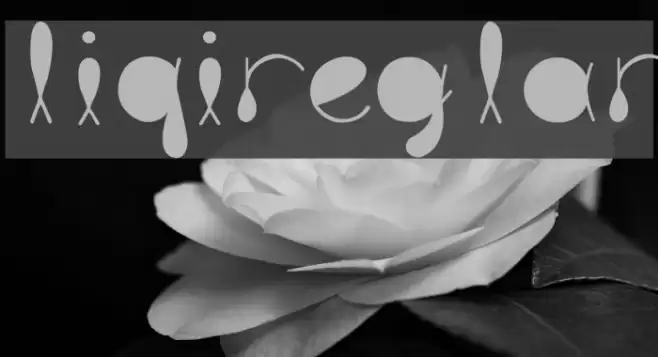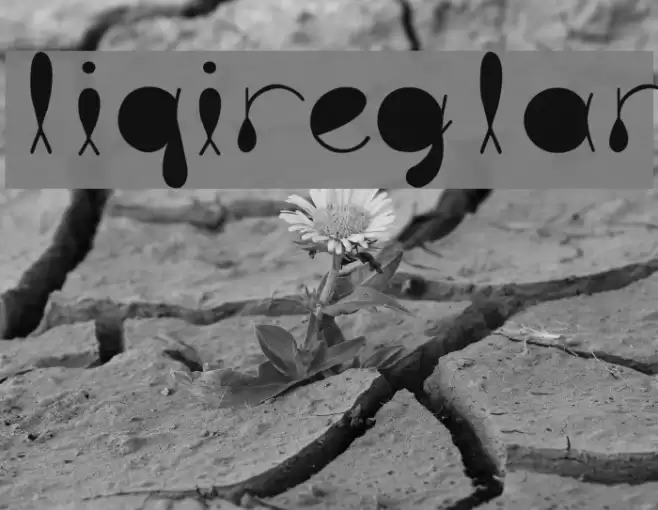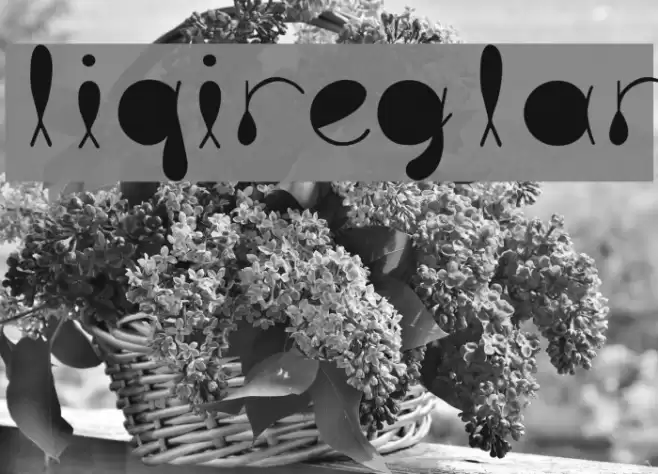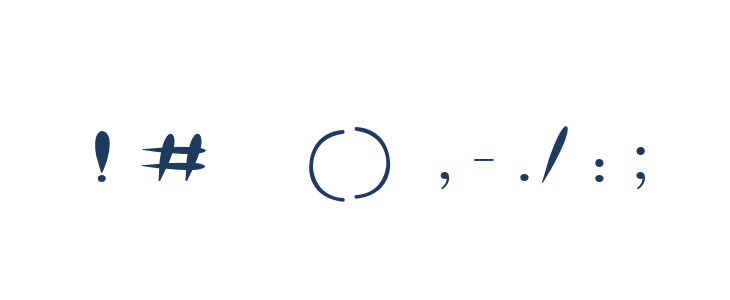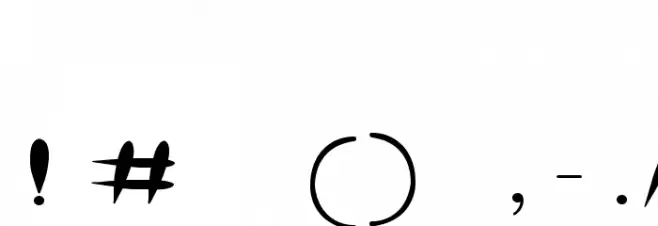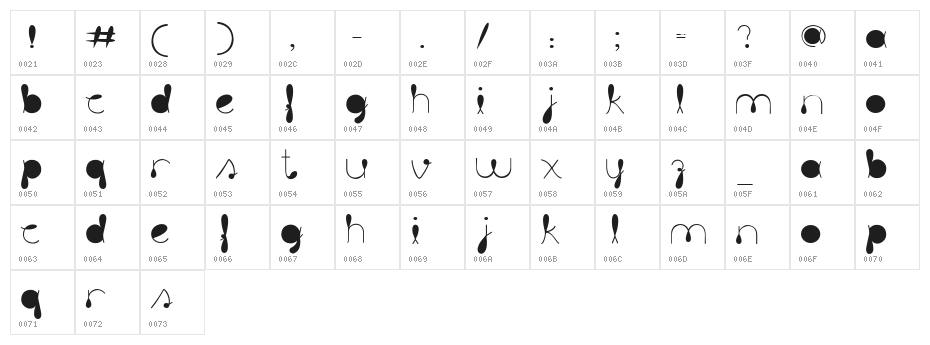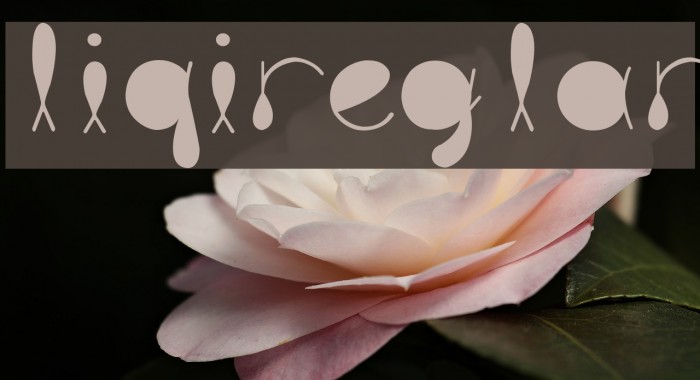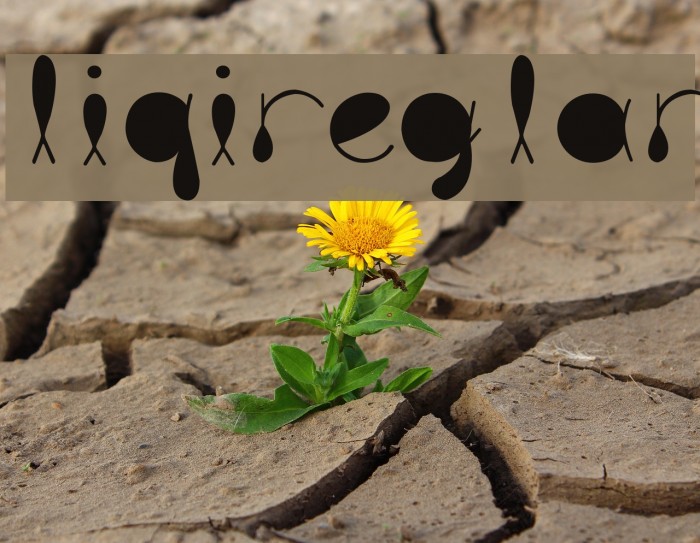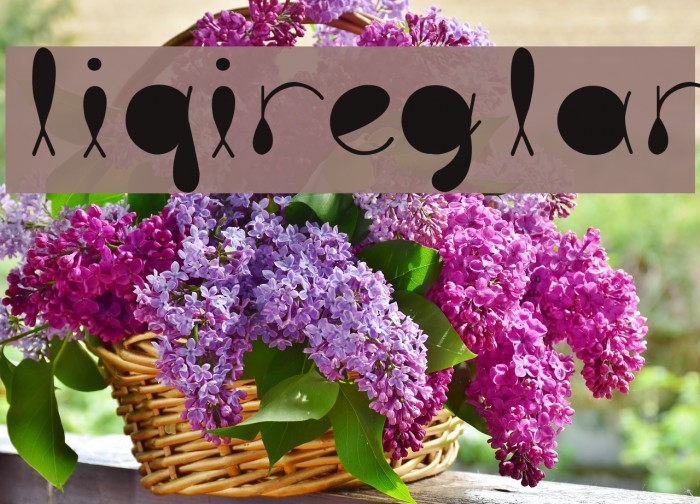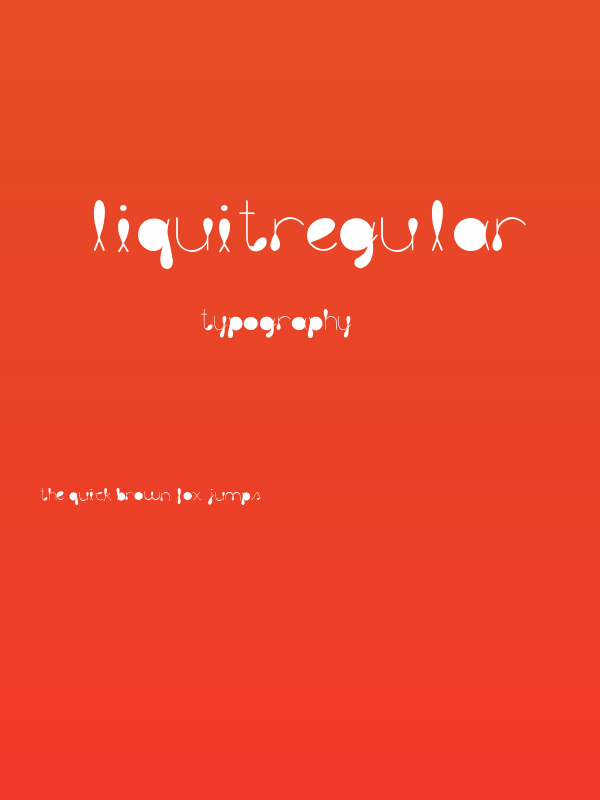
liquitRegular Font
liquitRegular Description
This font features a unique and playful design with a liquid-like appearance. The characters are crafted with bold, rounded strokes that give a sense of fluidity and movement. The lowercase letters exhibit a whimsical style, with some characters appearing as if they are dripping or melting. The uppercase letters maintain a similar playful aesthetic, with exaggerated curves and bold forms. The numbers and special characters continue this theme, providing a cohesive look across all glyphs. This font's distinctive style makes it stand out, offering a creative and artistic touch to any design.
A playful, liquid-inspired font with bold, rounded strokes and a whimsical style from Uncategorized fonts.